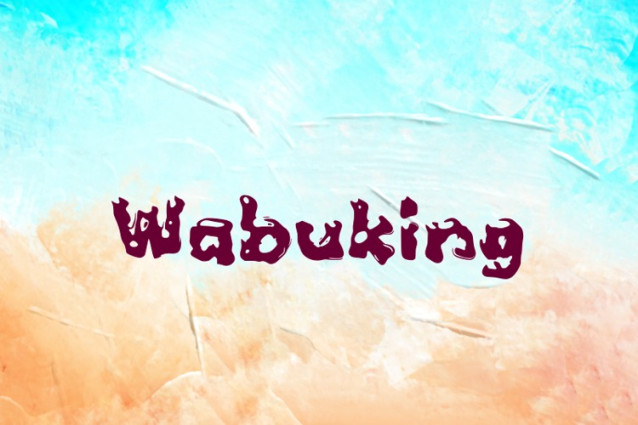
Wabuking Font
Wabuking Font, perfectly fit for branding, logo, wedding things, greeting cards, fashion, lookbook, marketing promotion, anytime you want to look fancy elegant but still casual.